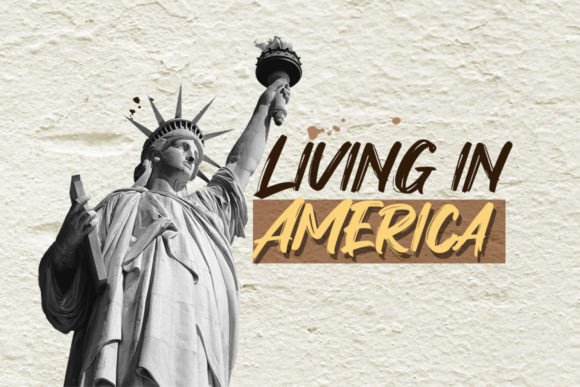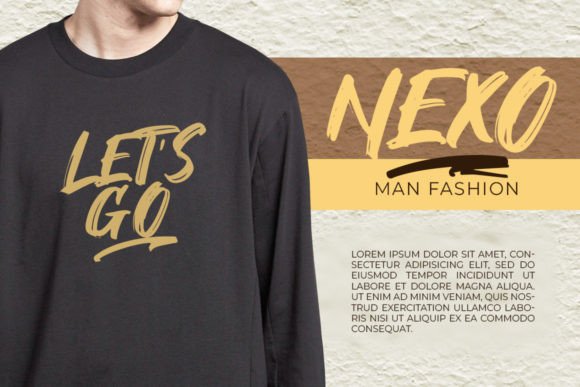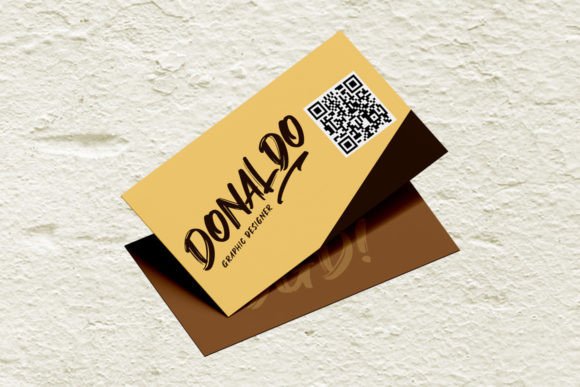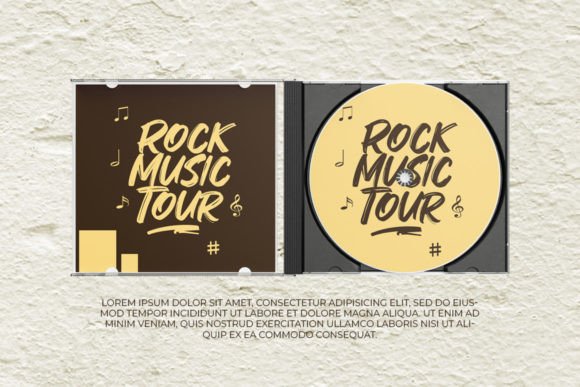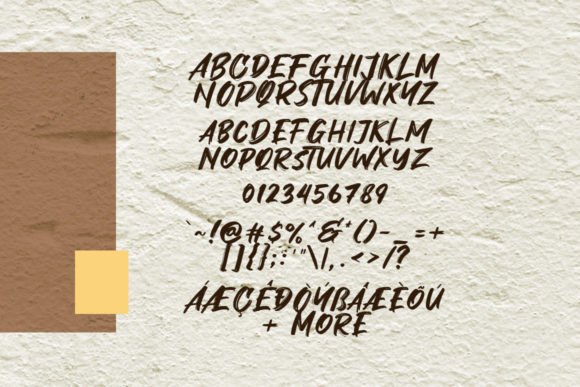
Introduction to Shock Brat Font
Have you ever stared at a blank canvas, eager to unleash your creativity but struggling to find the perfect font to bring your design to life? That’s exactly how I felt when I stumbled upon the Shock Brat Font. Its quirky charm and playful vibe instantly captured my attention, and I knew I had to learn more.
As a designer, I’m always on the lookout for high-quality fonts that can elevate my creative projects. The Shock Brat Font is a modern brush font that’s perfect for posters, logos, magazines, book covers, banners, and many more. Its versatility and unique character make it an invaluable resource for designers looking to add a touch of personality to their designs.
Key Features of Shock Brat Font
- High-quality font design suitable for creative projects and design resources.
- Designed to work seamlessly with transparent backgrounds, allowing for flexible design options.
- Features a high-resolution design, suitable for print and digital applications at 300 DPI and above.
- Unique, bold, and edgy design style, making it an ideal choice for those looking to add a touch of shock value to their creative project.
Honest Review: Shock Brat Font
I recently had the opportunity to work with the Shock Brat Font, and I must say, it’s been a wild ride. This free download has been a game-changer for my creative projects.
- Unique Style: The Shock Brat Font has a bold, edgy feel that’s perfect for making a statement in my designs.
- High Quality: The font is crisp and clear, making it perfect for print and digital projects.
- Transparent Background: The font’s transparent background makes it easy to overlay on top of other design elements.
- Limited Character Set: The font only includes a limited set of characters, which can be a problem for complex designs.
- Not Ideal for Small Text: The font’s bold style can make it difficult to read in small text sizes.
Overall, I’m impressed with the Shock Brat Font’s potential, but it’s not without its limitations. If you’re looking for a bold, high-quality font for your creative project, it’s definitely worth checking out. Just be aware of its limitations and plan accordingly.
Tips for Getting the Most Out of Shock Brat Font
Use the Shock Brat Font for creative projects that require a high-quality, eye-catching font. Consider pairing it with a transparent background to make your design stand out. You can also use the font in conjunction with other design resources, such as graphics and images, to create a cohesive and engaging design.
The Shock Brat Font is perfect for use in a variety of design projects, including social media graphics, flyers, posters, and business cards. It’s also a great choice for designers who want a free download of a high-quality font that can be used in a variety of design software, including Canva, Adobe Photoshop/Illustrator, and PowerPoint/Word.